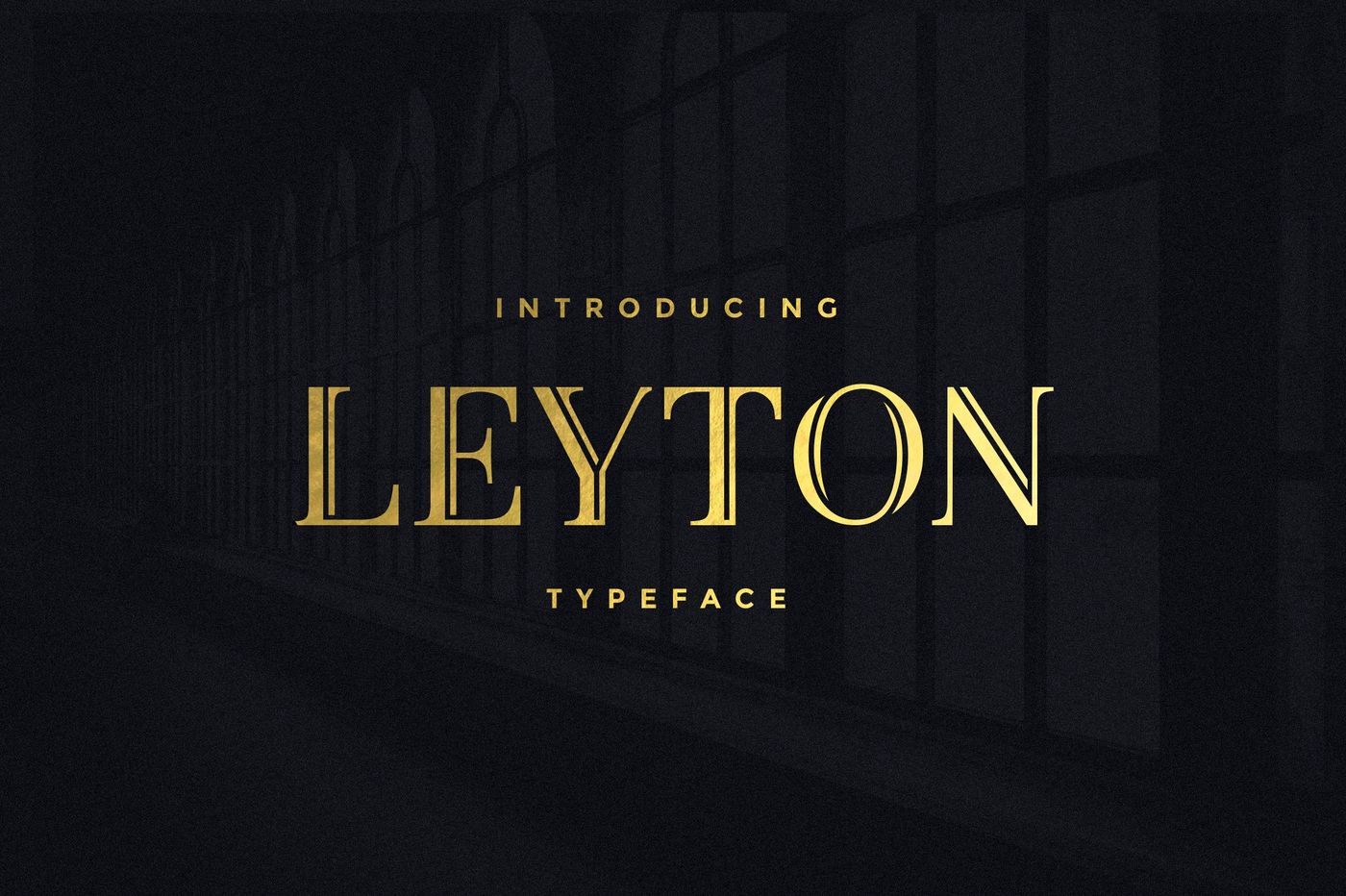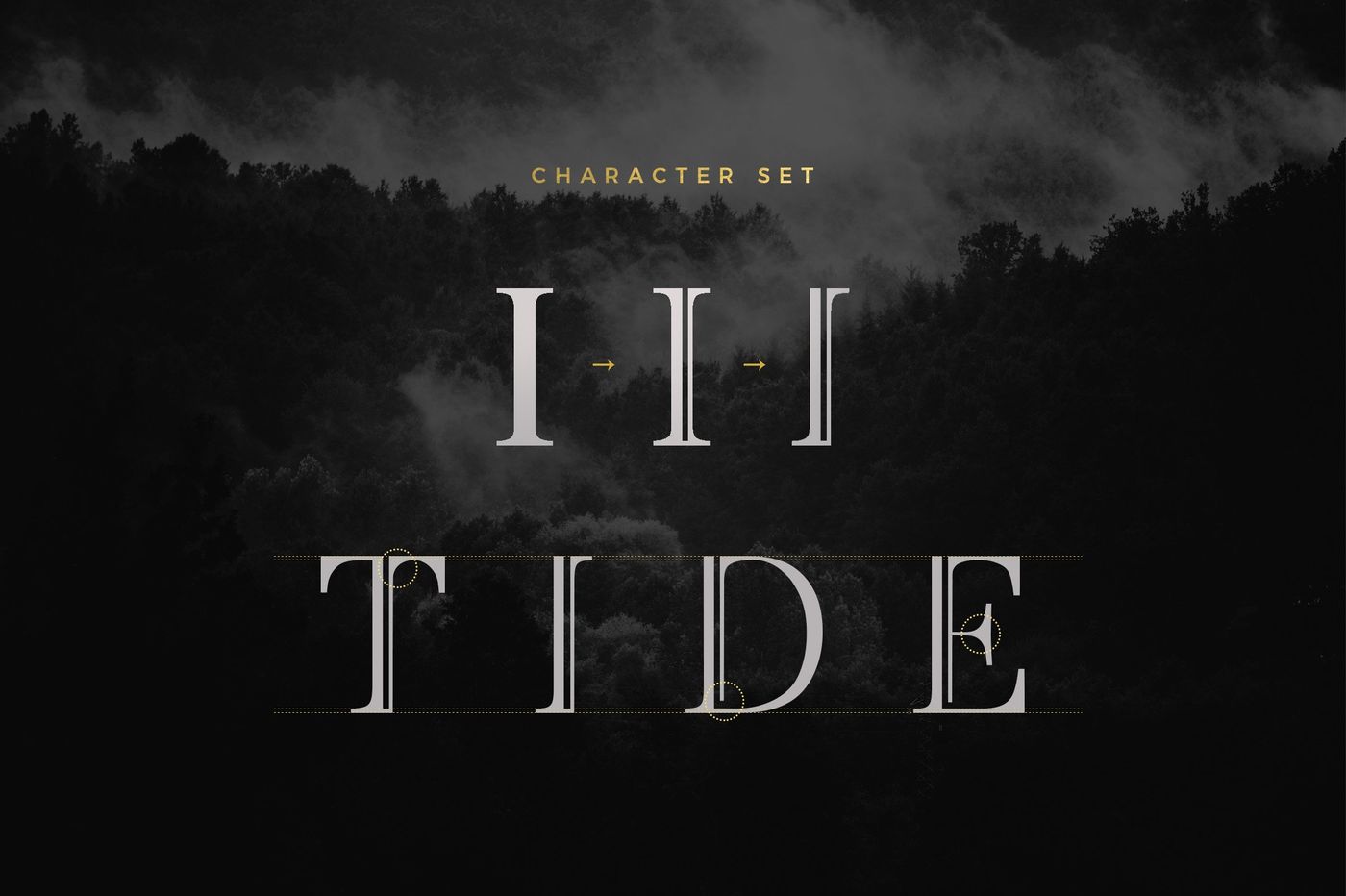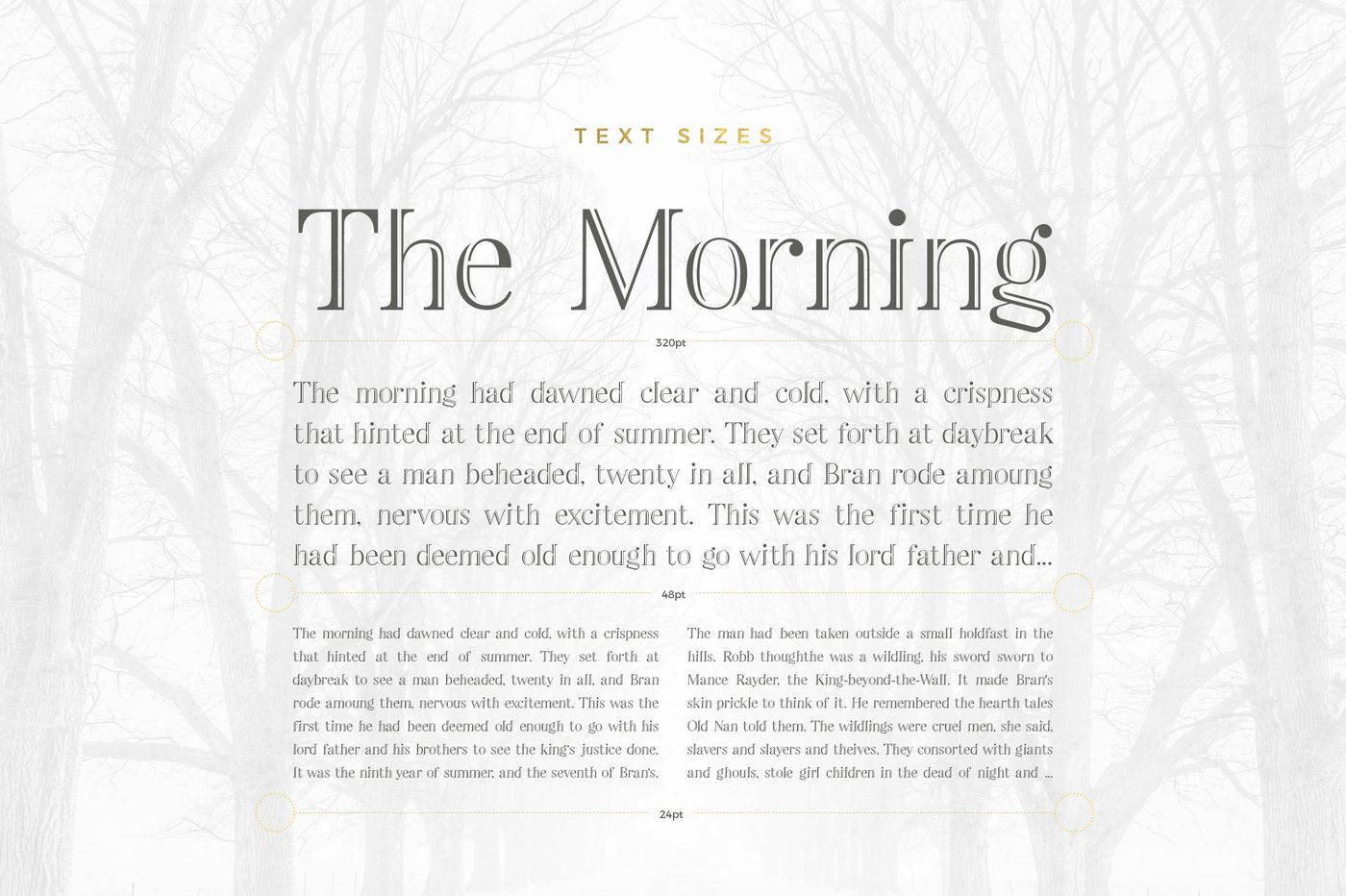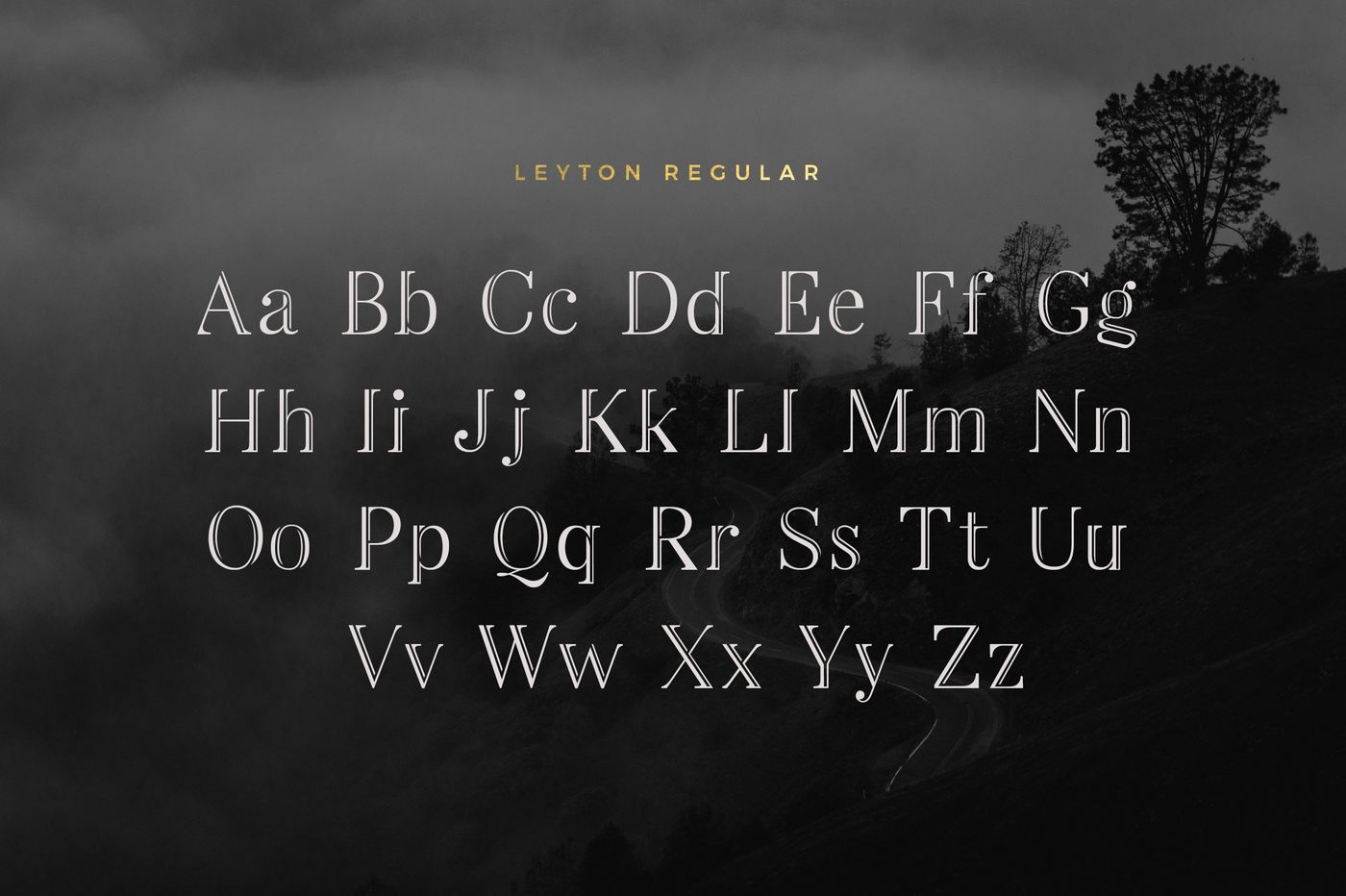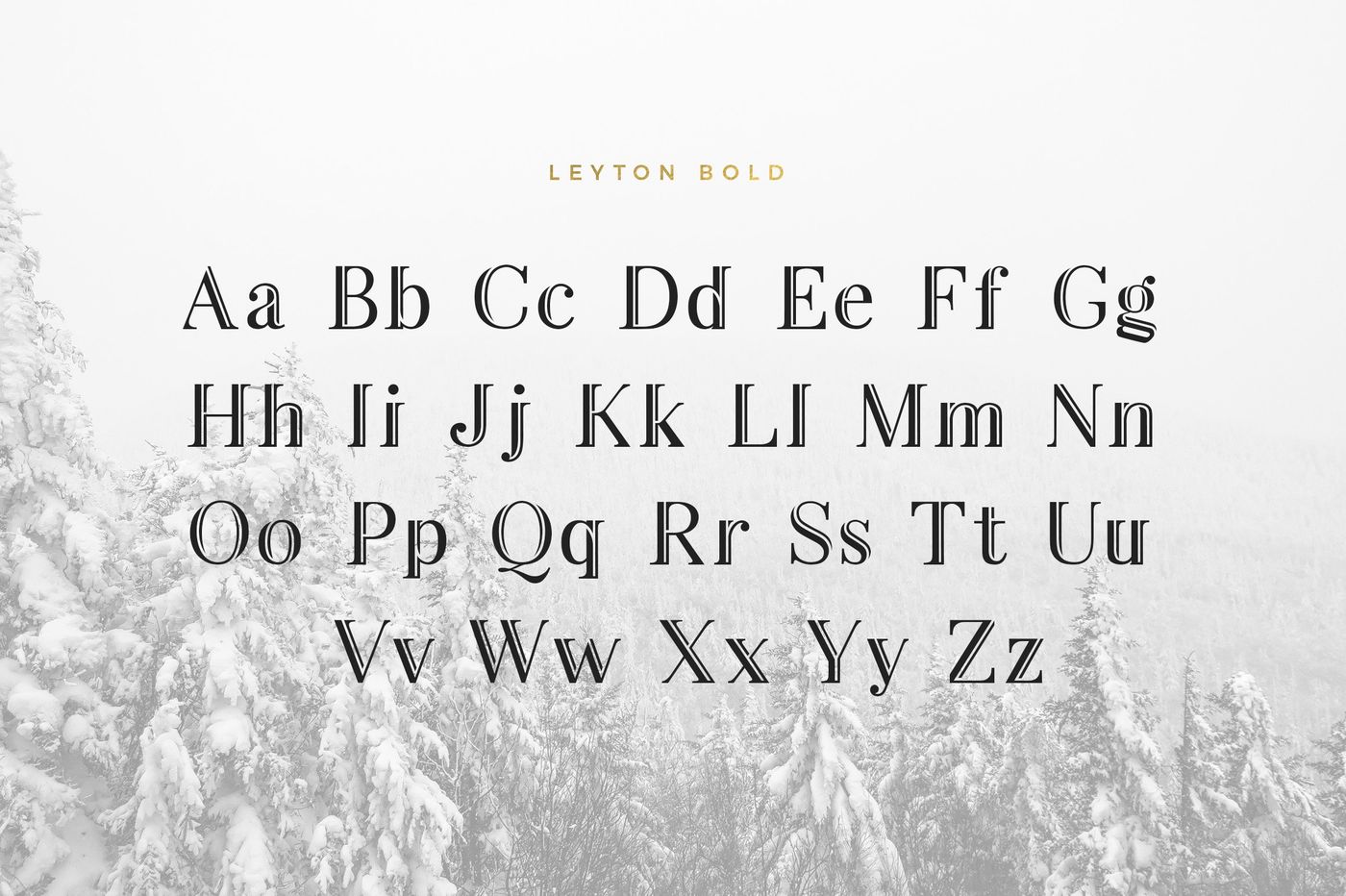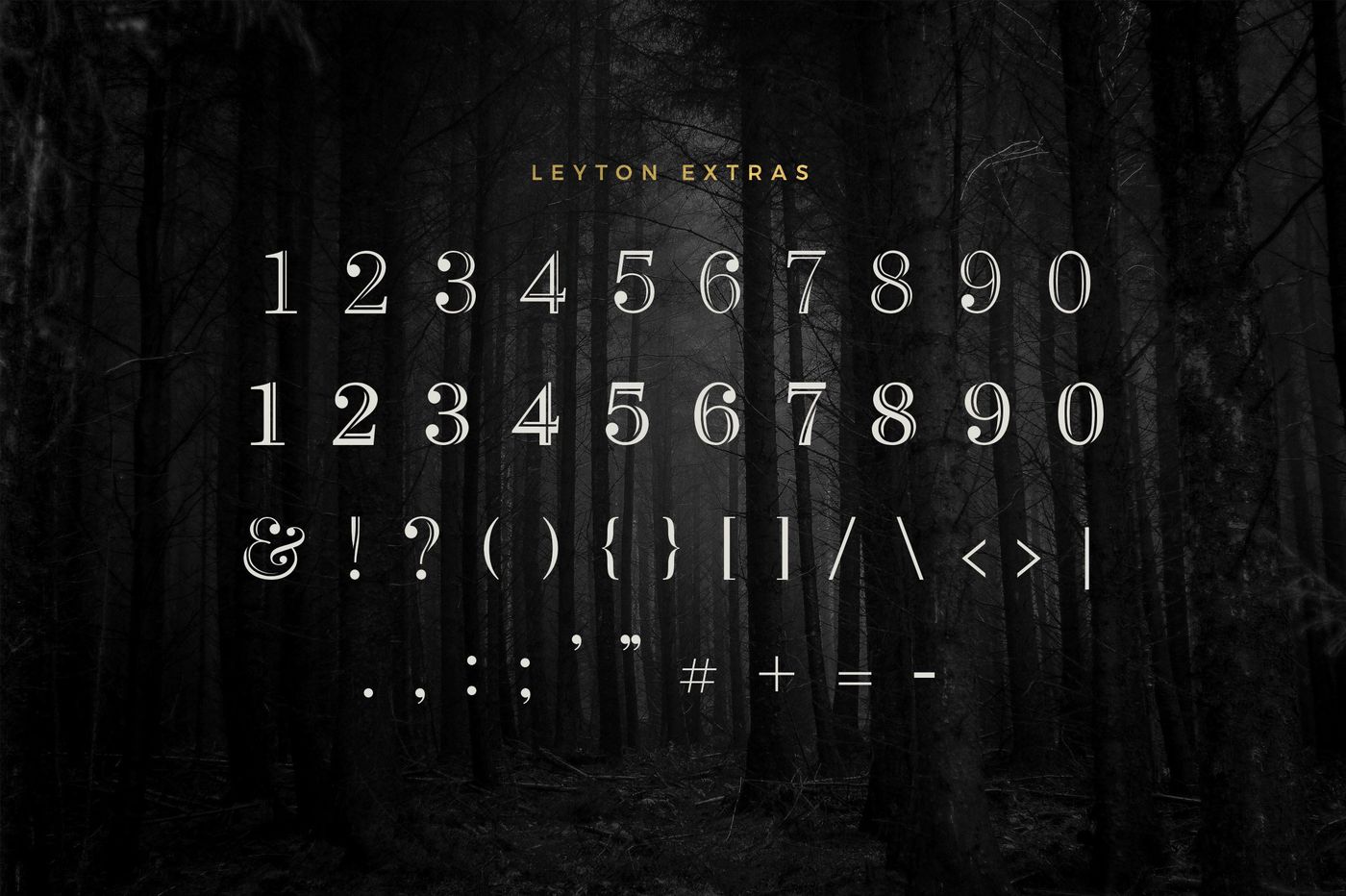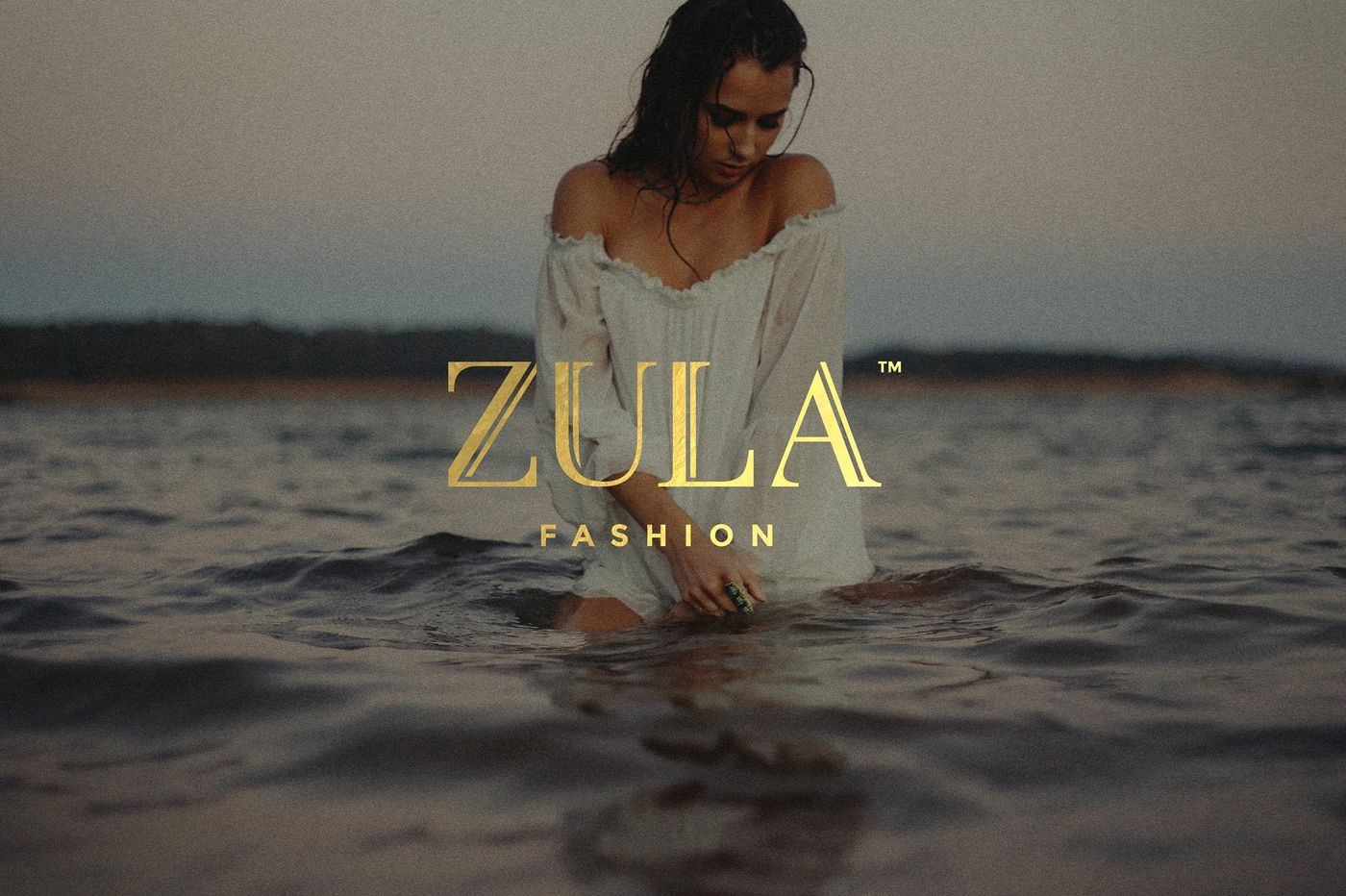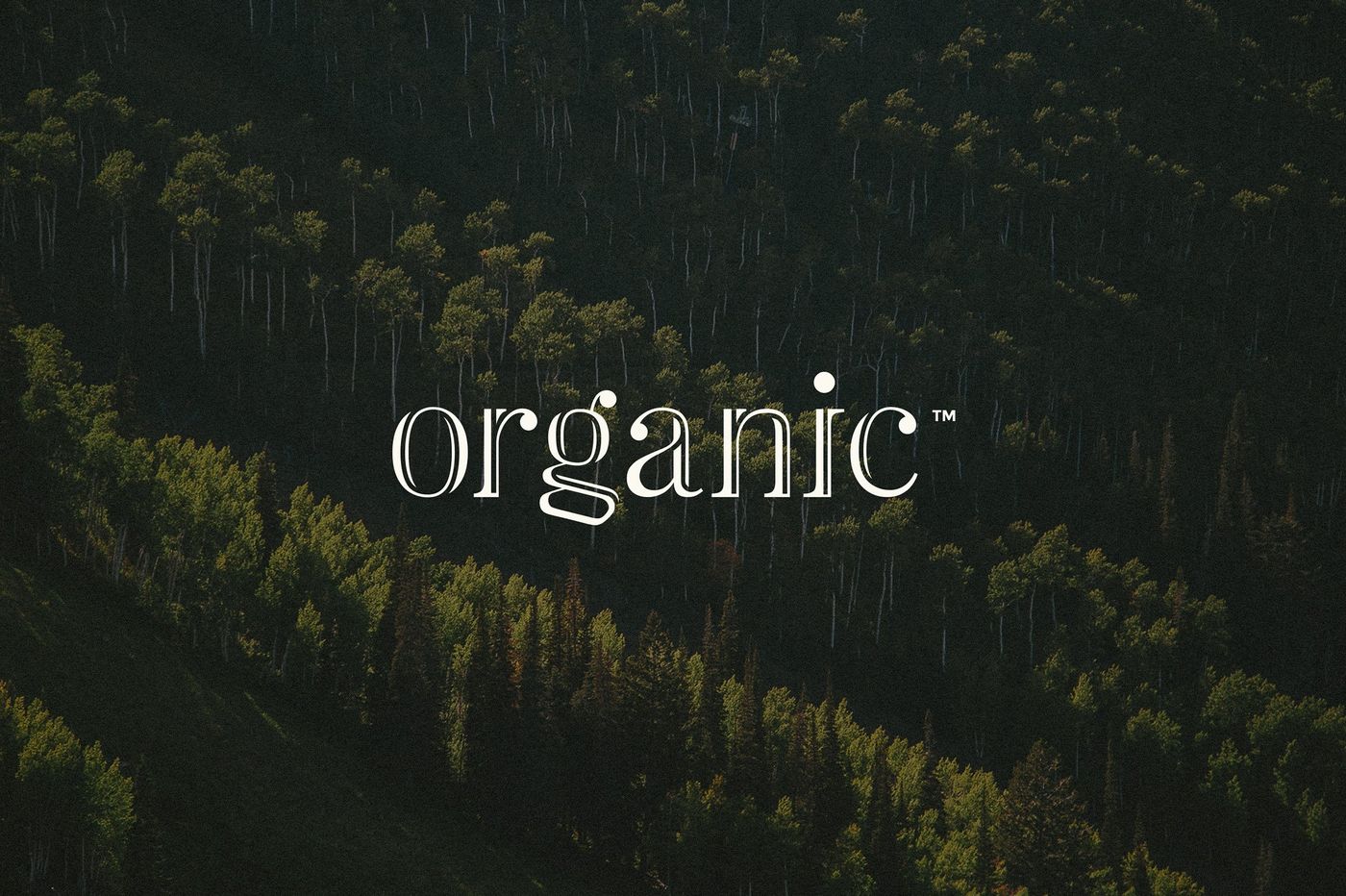
Leyton, from Ellen Luff Type Foundry, is an elegant display typeface with a unique twist on a traditional, modern serif. It creates a striking but subtle, highly distinctive look. It’s a beautiful typeface perfect for sleek and elegant titles, headlines, and even custom logotype designs. It is also designed to be used in branding, editorial, or packaging, giving a classy touch. As well as being a stylish text overlay onto any image, or a beautiful addition to a wedding invitation!
Leyton is an elegant display serif with a modern twist — perfect for titles, branding, packaging, editorials, and stylish overlays or invitations.